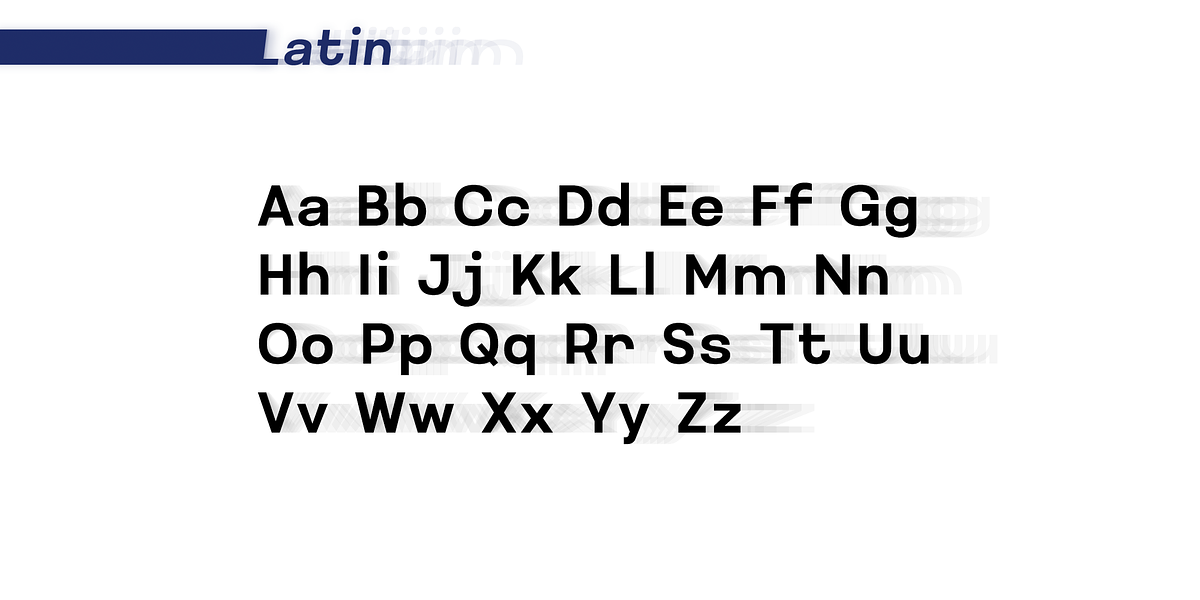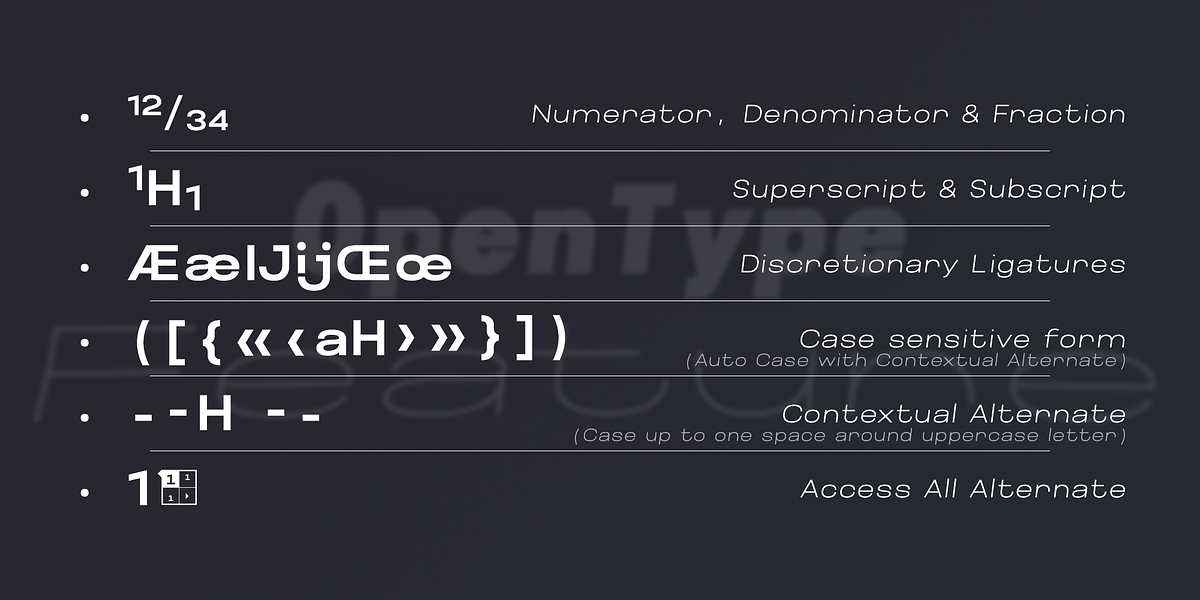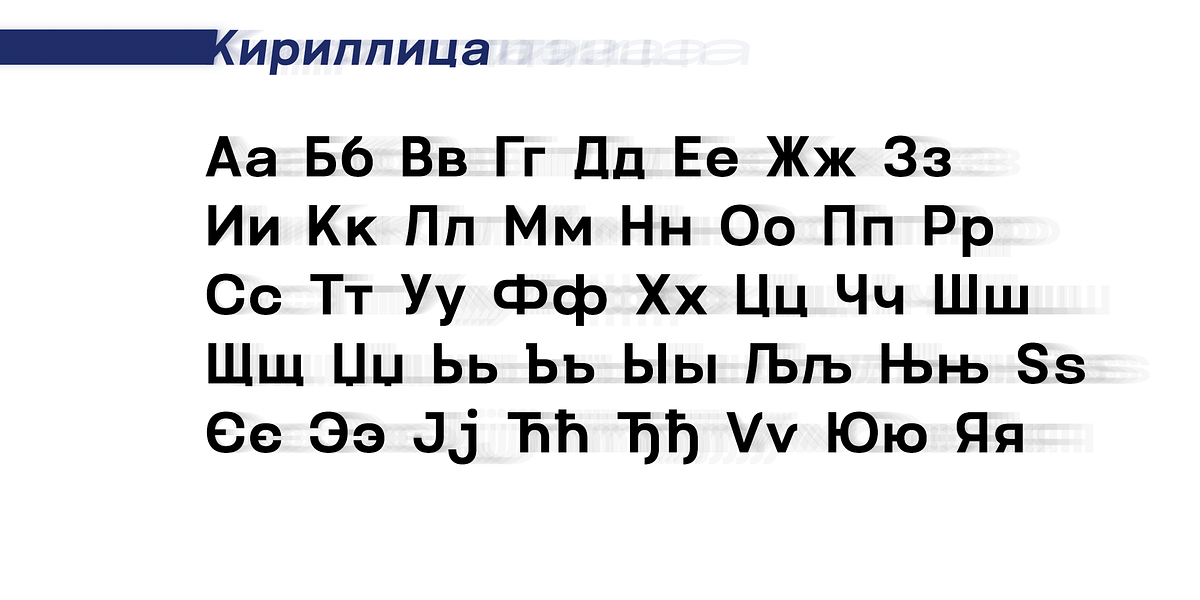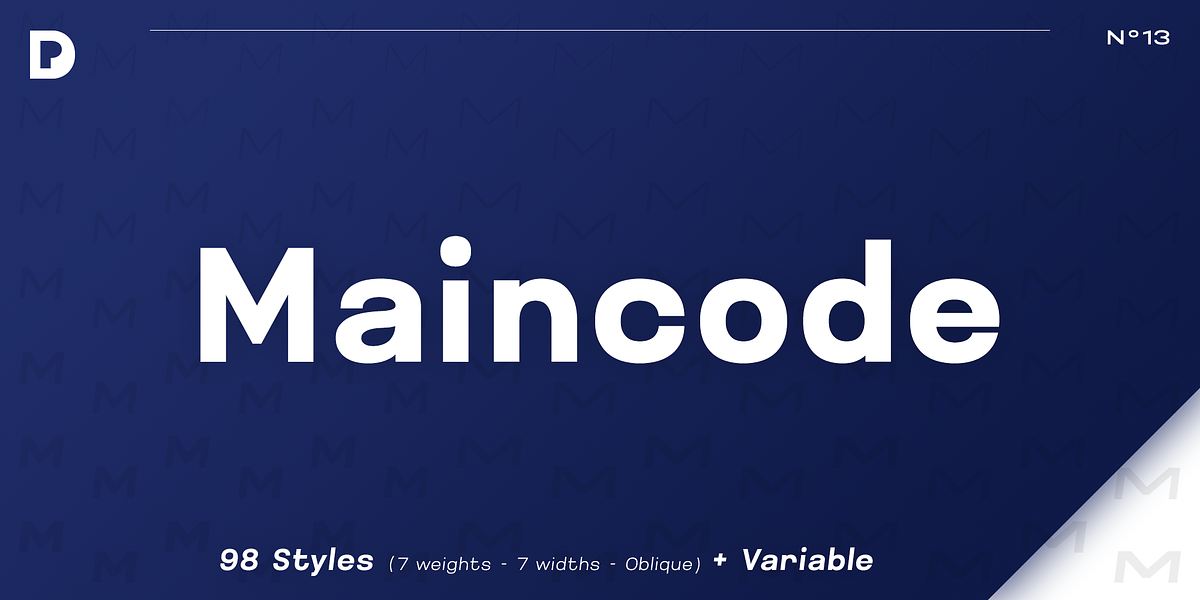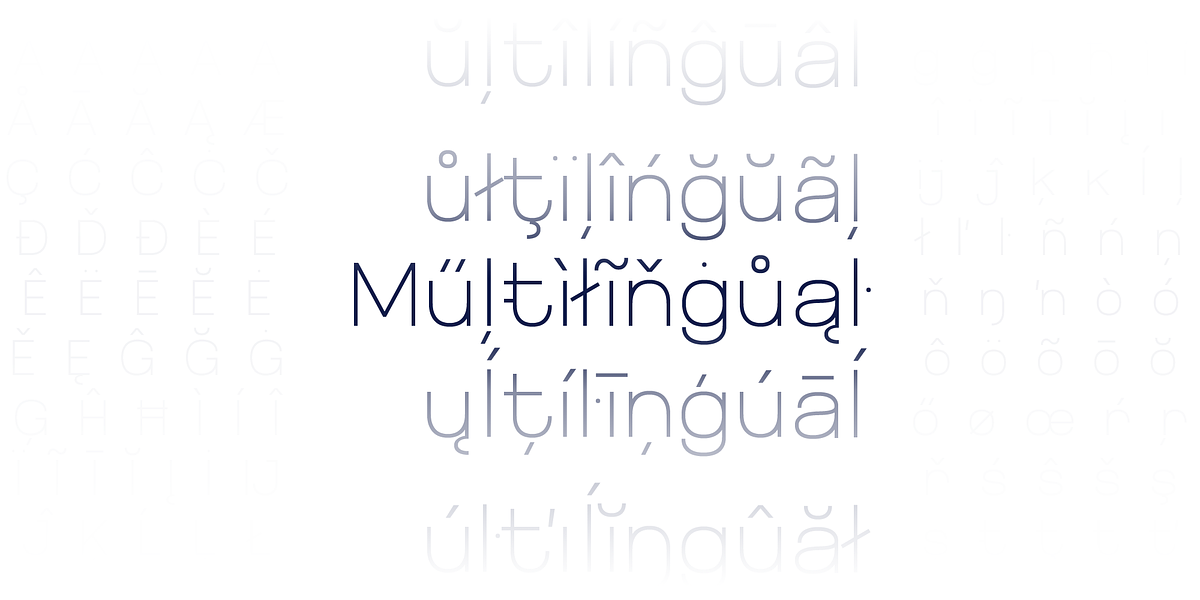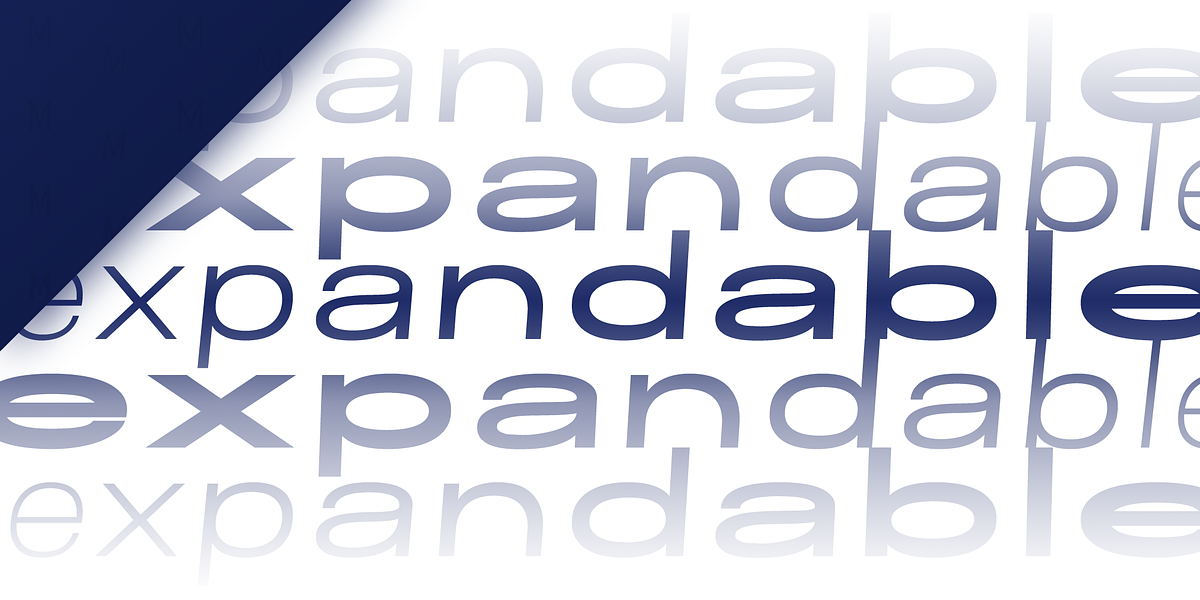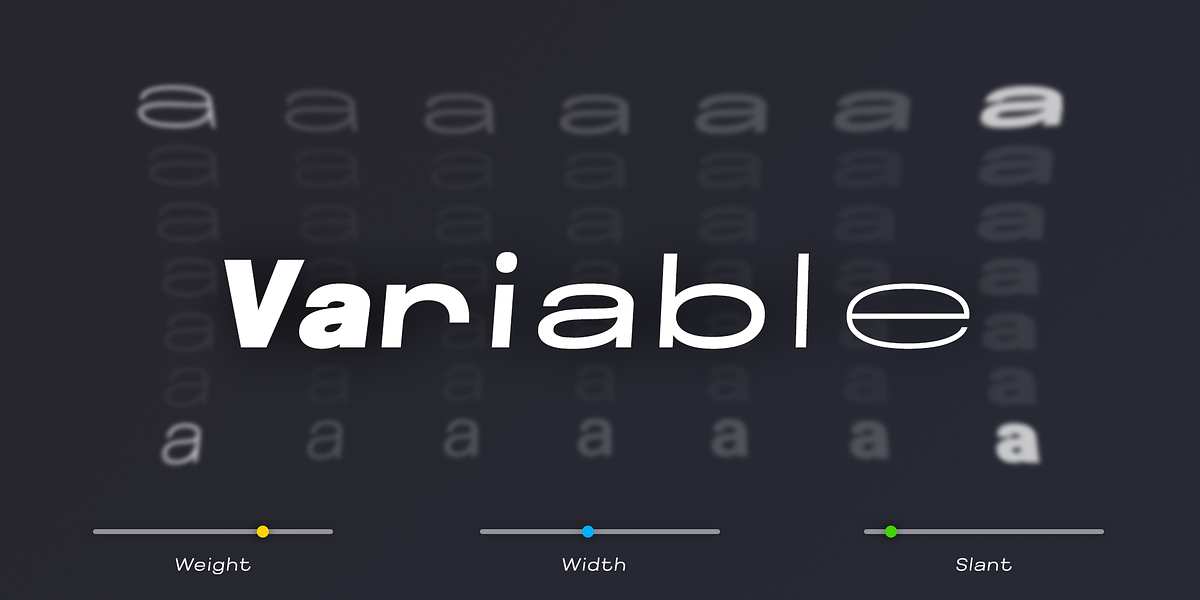
Maincode
Maincode is a modern geometric sans-serif typeface designed for versatility. Its clean lines and bold presence make it suitable for both display and text applications. The extensive OpenType features, including ligatures, fractions, subscripts, and superscripts, allow for precise typographic control. With seven weights and widths, as well as a variable version, Maincode offers exceptional flexibility for designers.